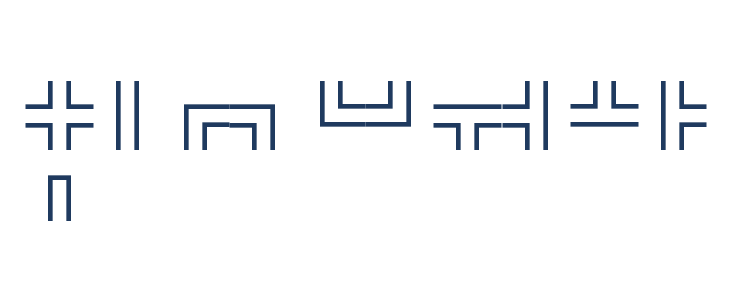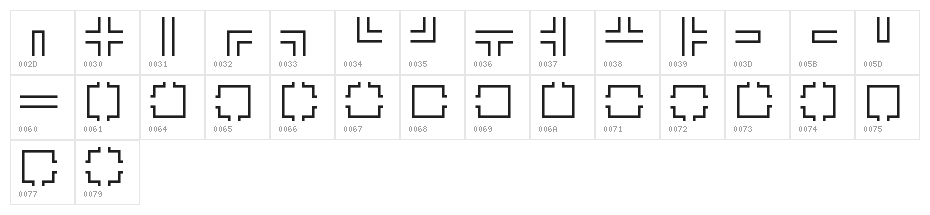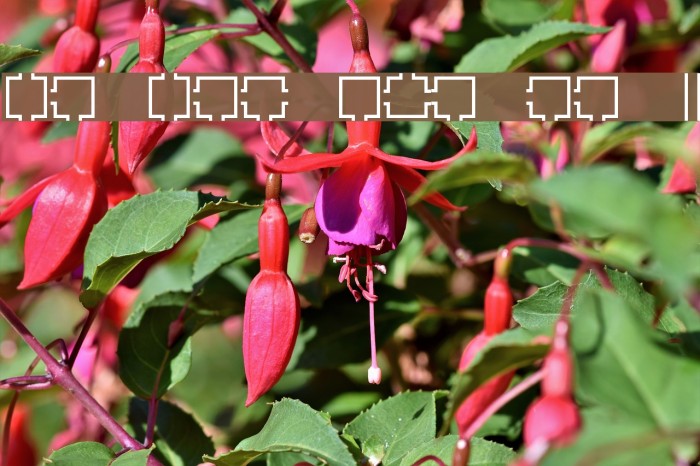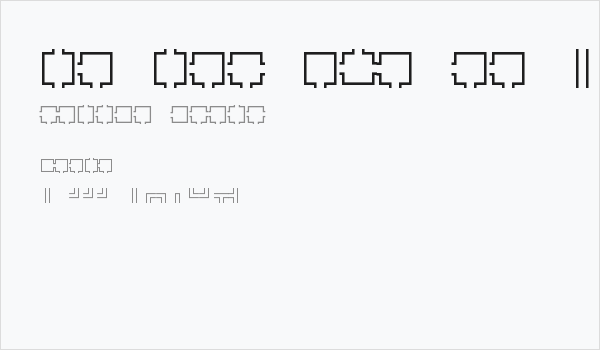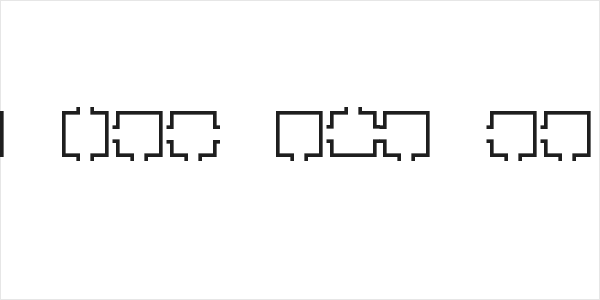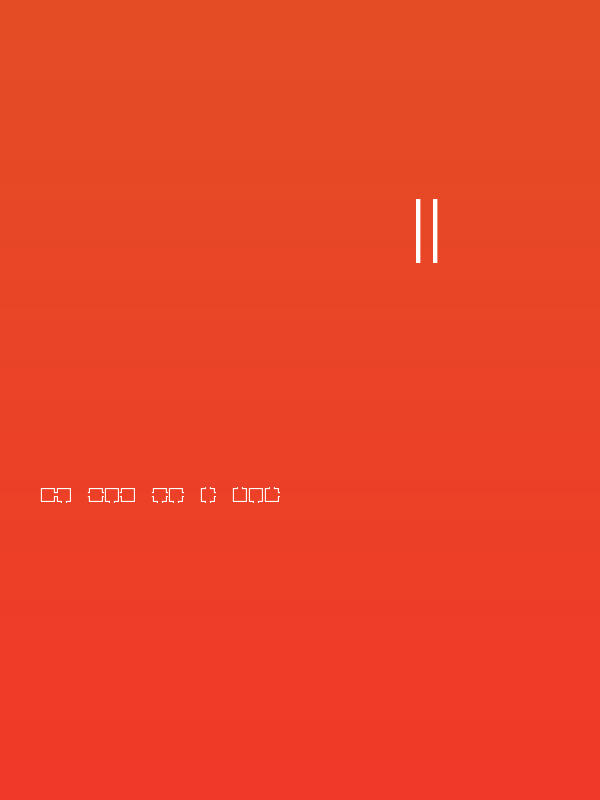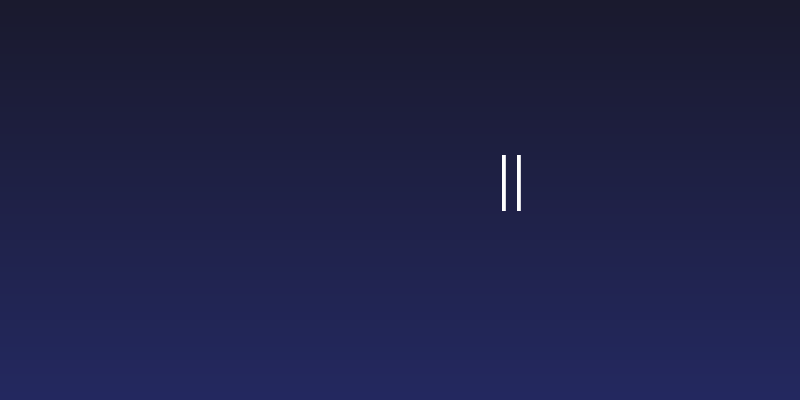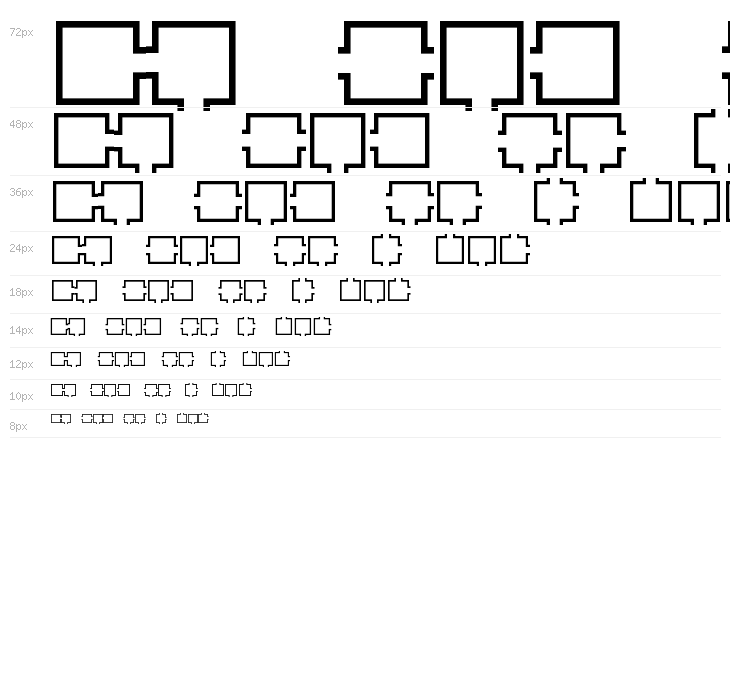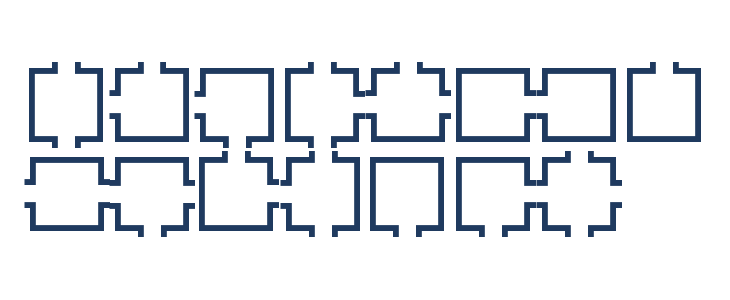
Maze Maker Dungeon Level 1F Font
Maze Maker Dungeon Level 1F Description
This design features a series of interconnected lines and shapes that resemble a maze or dungeon layout. The elements are composed of straight lines and right angles, creating a geometric and structured appearance. The design is minimalistic, with a focus on clarity and precision, making it suitable for use in puzzle games or as a decorative element in thematic designs. The style is reminiscent of classic dungeon maps, offering a nostalgic feel for fans of retro gaming.
| Use Case | Decorative elements, Game design |
| Proposed Projects | Ideal for use in puzzle games, retro-themed designs, or as decorative elements in fantasy or adventure projects. |